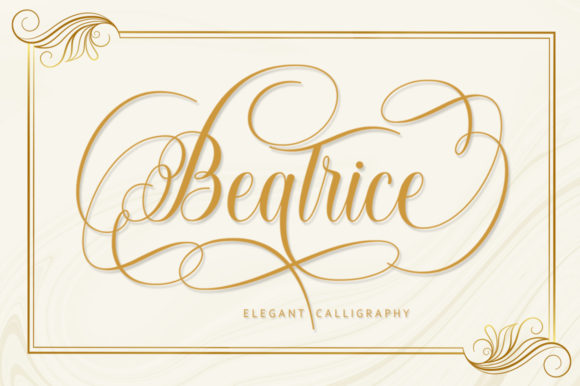
Prepare yourself to be mesmerized by Beatrice Font, the embodiment of elegance and grace in the world of typography. This script font, crafted by the talented team at Black Studio, exudes an aura of sophistication that will leave you breathless. Its fluidity and finesse make it a captivating choice for a wide range of design projects, including wedding invitations, thank-you cards, quotes, greeting cards, logos, business cards, and more.
Beatrice Font is not just a font; it's an art form, a symphony of curves and strokes that dance across the page, creating a visual masterpiece. Its varying baseline, smooth lines, and stunning alternates add a touch of playfulness and uniqueness to your designs. Each letter, each glyph, is a testament to the meticulous attention to detail that went into creating this font.
Imagine your wedding invitation adorned with Beatrice Font, the words flowing seamlessly like a delicate calligraphy. Your guests will be captivated by the beauty and elegance of the font, setting the tone for a truly special occasion. Or envision your business card, the name of your company rendered in Beatrice Font, exuding professionalism and charm. The font's graceful curves will make a lasting impression, leaving a mark of distinction that sets you apart from the competition.
Beatrice Font is more than just a tool; it's an extension of your creativity, a medium through which you can express your unique style and vision. Whether you're a seasoned designer or just starting out, Beatrice Font will elevate your projects to new heights, adding a touch of magic and inspiration.
Join the countless designers and creatives who have fallen in love with Beatrice Font. Experience the joy of creating with a font that feels like an extension of your own hand. Let Beatrice Font be your muse, your creative companion, as you bring your ideas to life in stunning style.